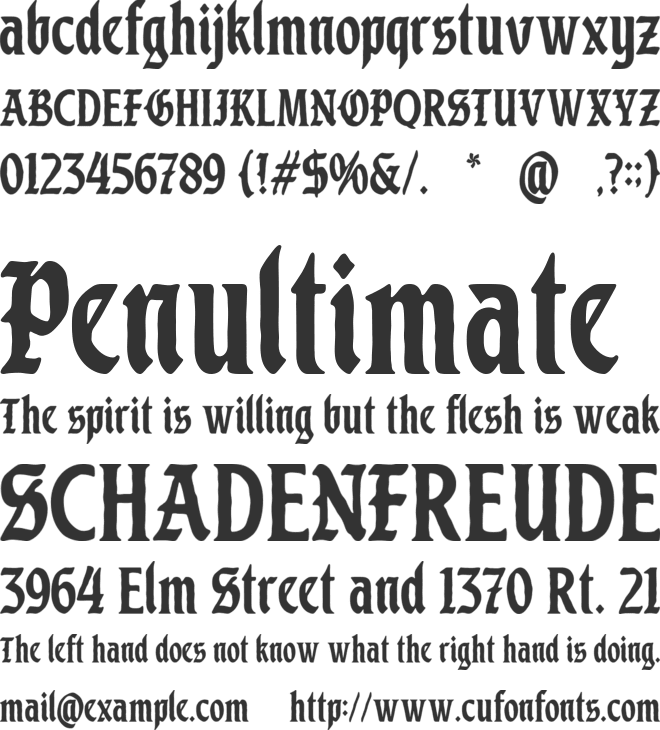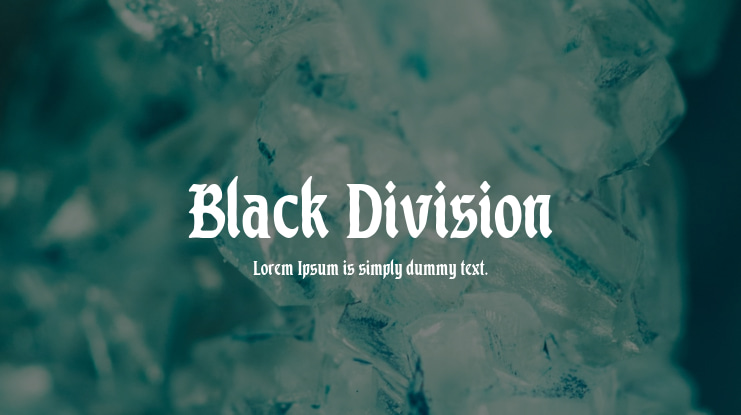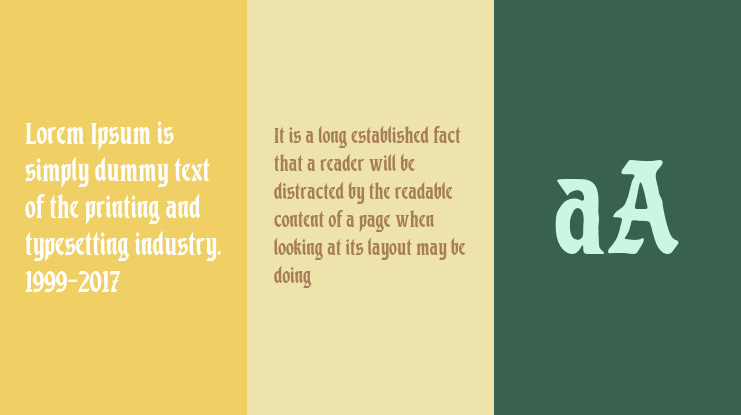
Black Division Font
Kana Widana
Black Division Typeface is a bold and versatile blackletter font that adds a raw, vintage flair to your designs. Its rough, distressed texture and classic blackletter structure make it perfect for projects requiring an old-world, gothic aesthetic with a modern twist. Whether you’re designing for branding, packaging, apparel, or signage, this font's unique character ensures your work stands out with a powerful, dramatic presence.